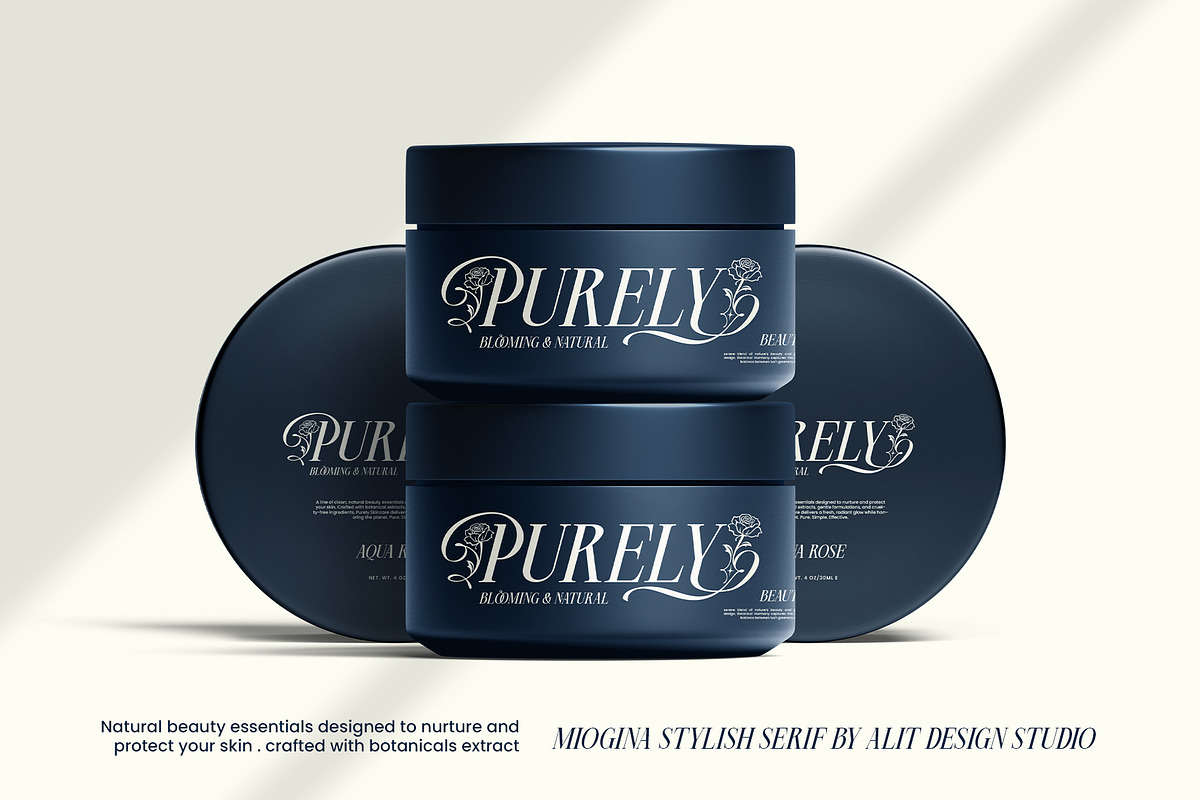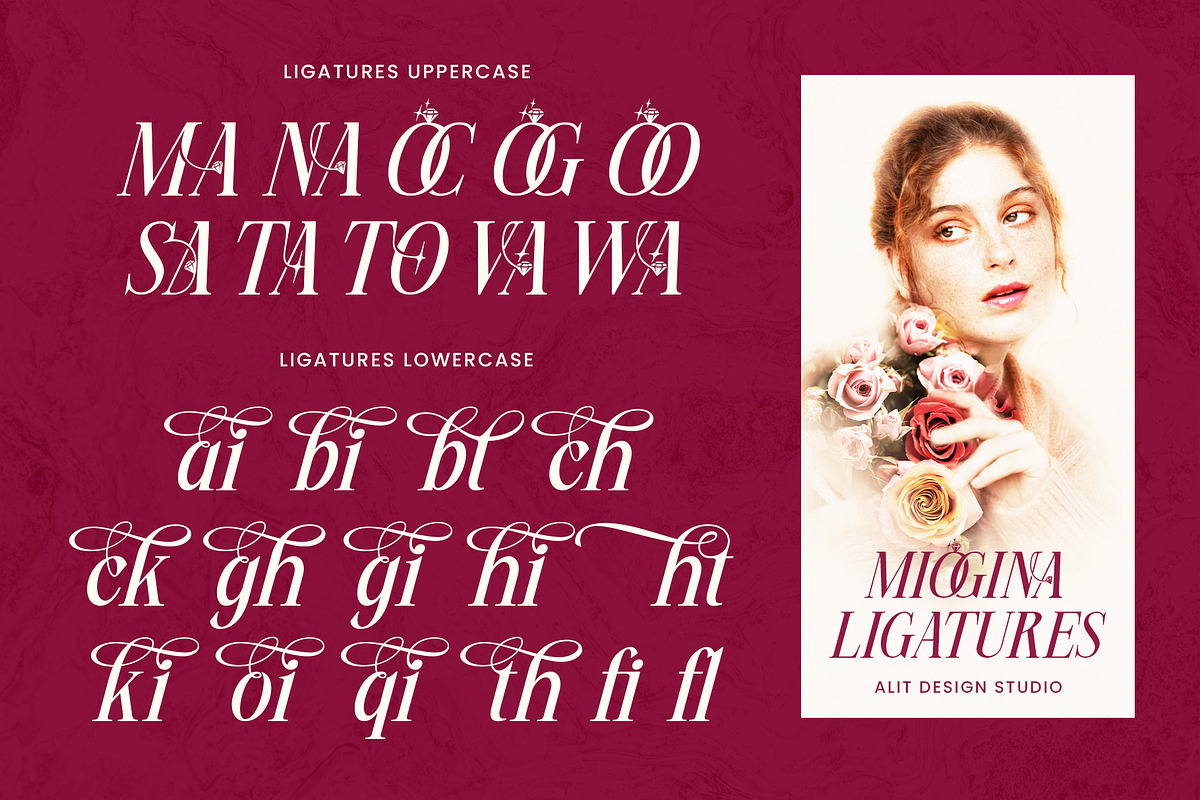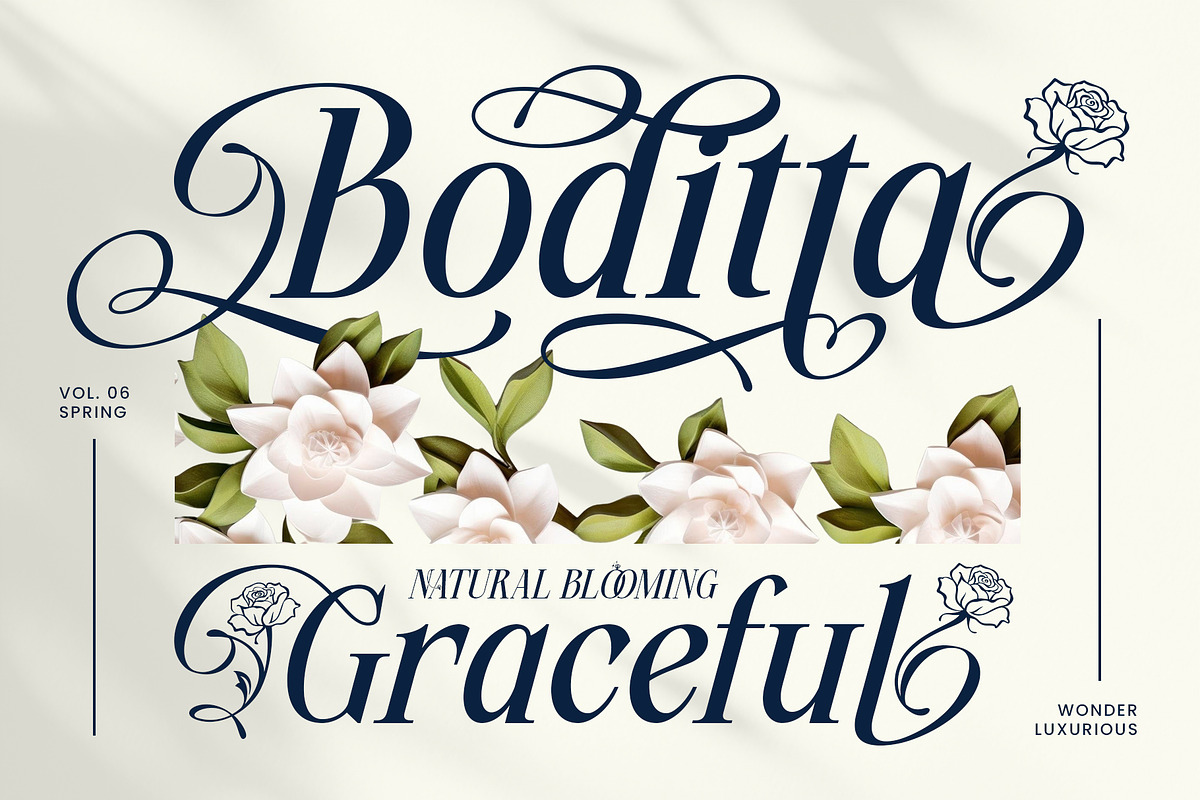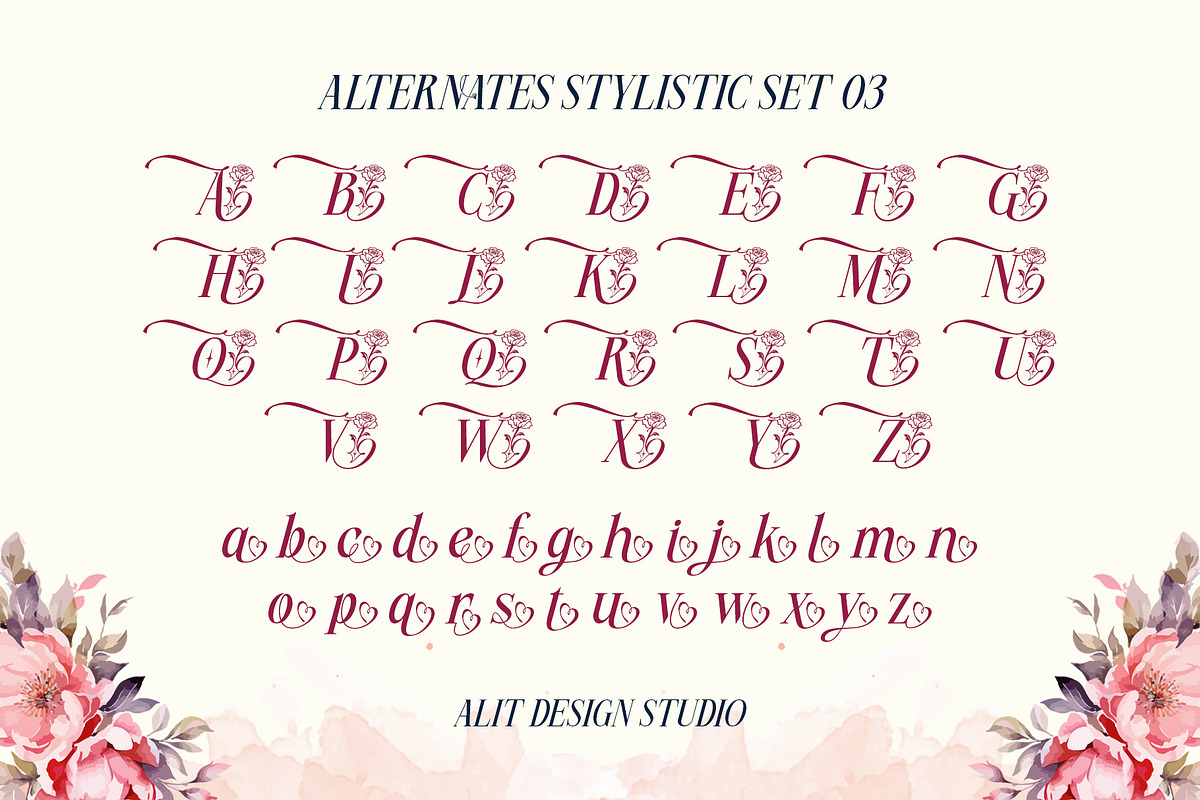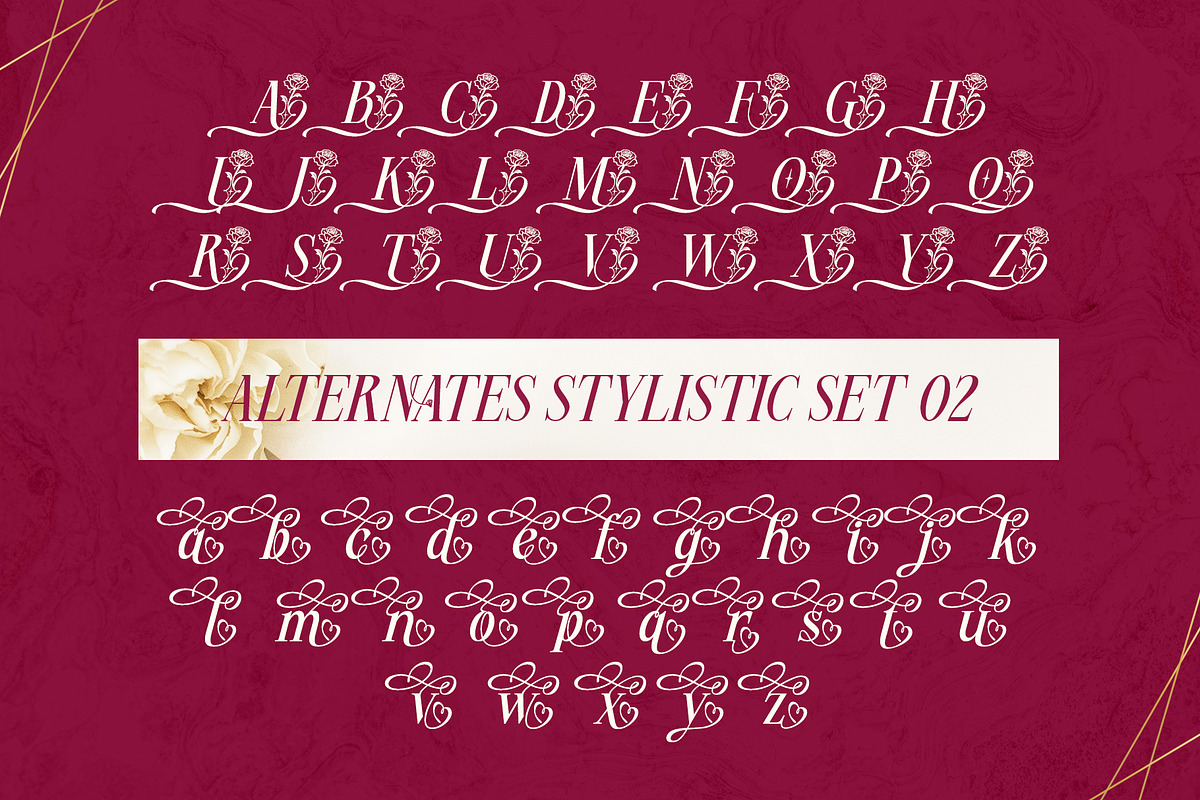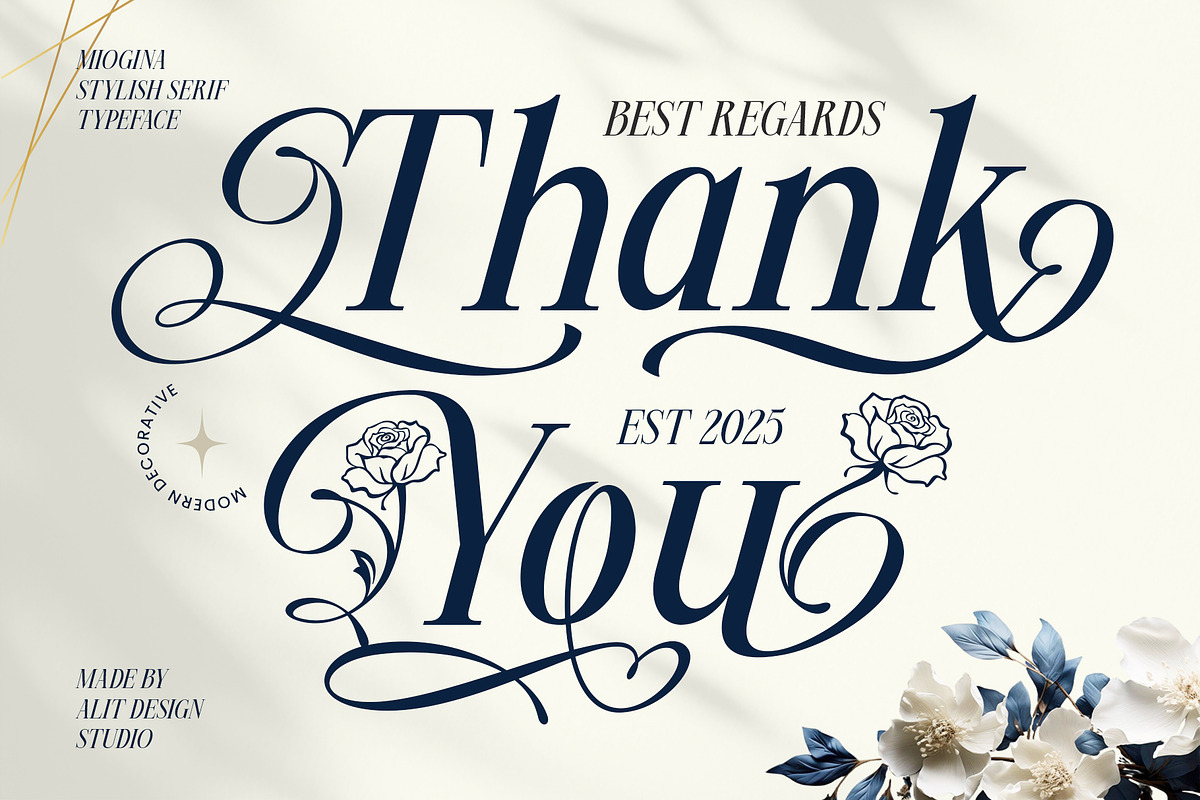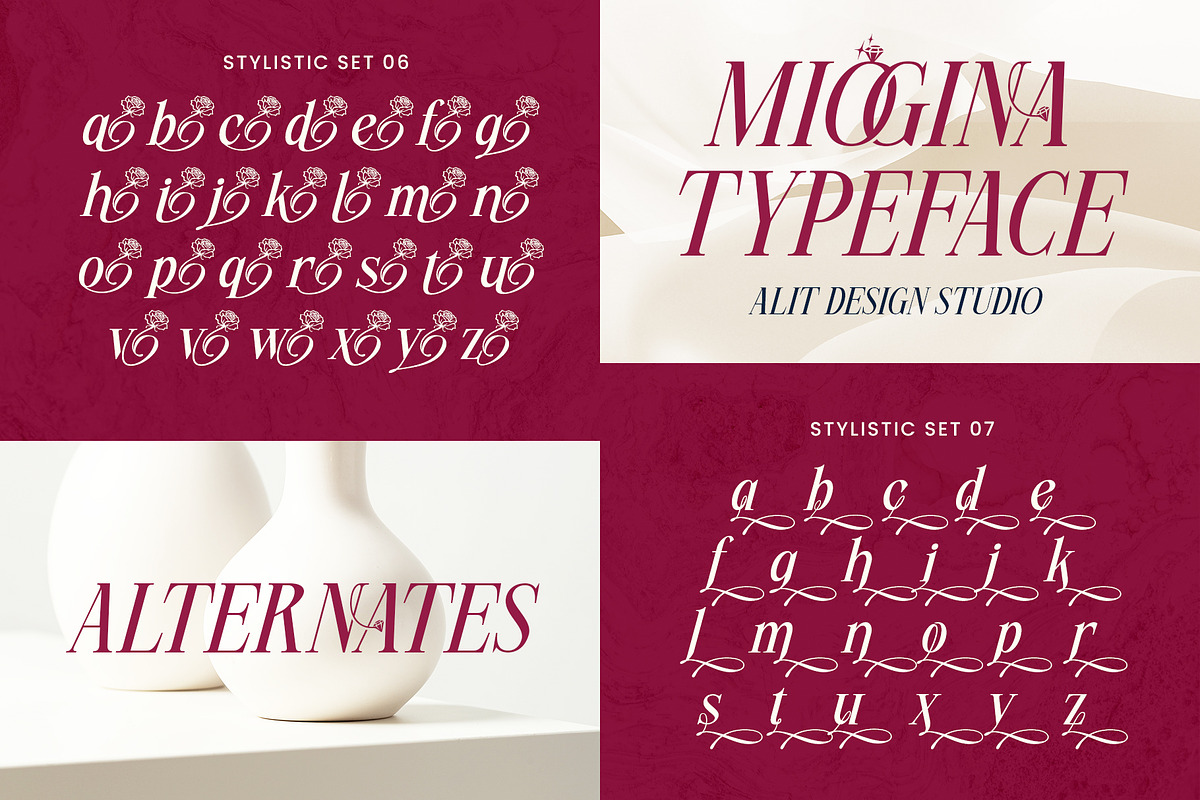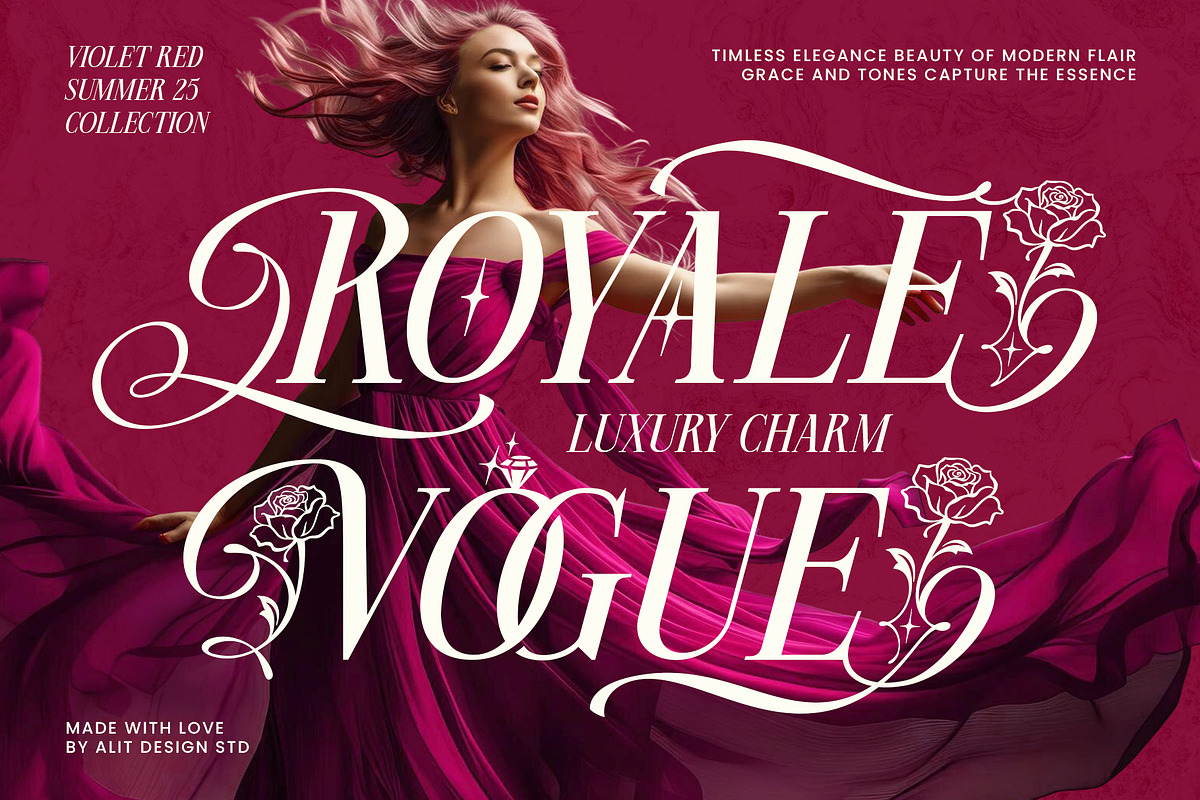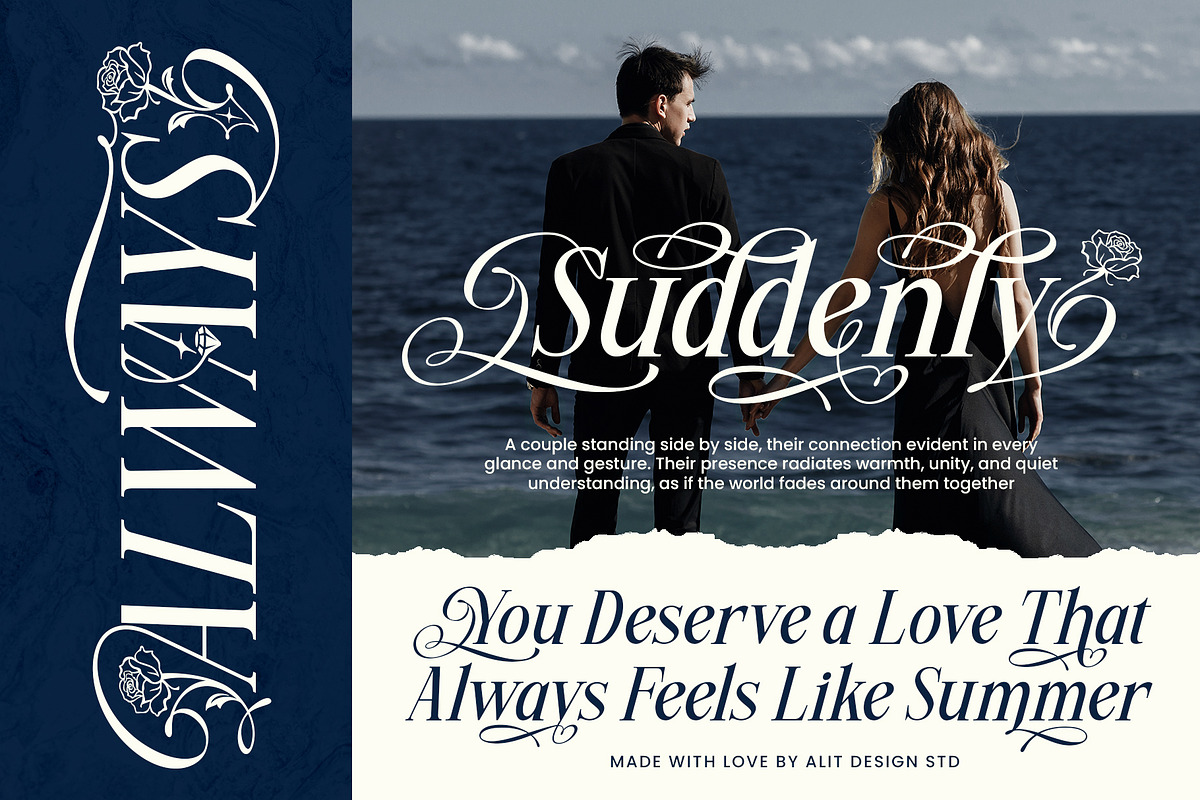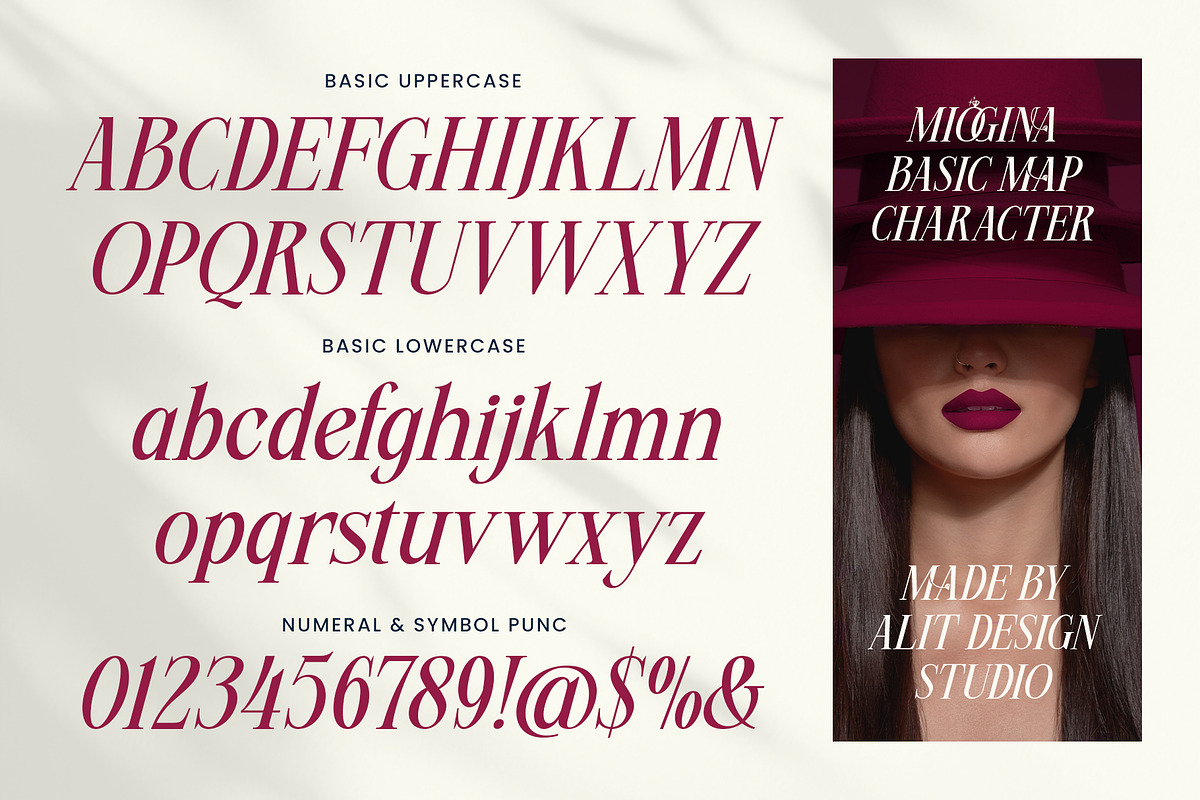
Miogina Typeface
Unveiling Miogina Typeface: The Quintessence of Modern Serif Elegance with Swash Artistry
Prepare to redefine your design aesthetic with Miogina Typeface, an exquisitely crafted modern serif font that masterfully intertwines contemporary sophistication with the flowing grace of elegant swashes. Designed with meticulous attention to detail by Alit Design Studio, Miogina is not merely a typeface; it's a versatile artistic tool poised to infuse your projects with an unparalleled sense of luxury, romance, and timeless beauty.
Dive Deeper into Miogina's Distinctive Features:
A Harmonious Fusion of Styles: Miogina stands out by seamlessly blending the clean, legible lines of a modern serif with the ornate, calligraphic flourishes of script-inspired swashes. This unique combination offers the best of both worlds: professional readability enhanced by an artistic, personalized touch. Perfect for conveying a message that is both authoritative and enchanting.
Rich & Romantic Ornamental Glyphs: Elevate your typography beyond mere letters. Miogina is thoughtfully adorned with a stunning array of integrated ornamental glyphs that include:
- Delicate Roses: Symbolizing beauty and love, perfect for adding a romantic or high-fashion touch.
- Sparkling Diamonds: Representing luxury, exclusivity, and prestige, ideal for premium branding.
- Charming Hearts: Connoting warmth, affection, and passion, suitable for personal or celebratory designs. These integrated ornaments are designed to flow seamlessly with the letterforms, creating cohesive and visually captivating compositions.
Expansive Glyph Library (772 Glyphs): Miogina boasts an impressive collection of 772 glyphs, providing an extensive palette for creative expression. This robust set ensures you have the flexibility to achieve virtually any stylistic nuance you envision, from subtle enhancements to dramatic declarations.
Unleash Creativity with Stylistic Alternates: Miogina truly shines with its dedicated stylistic sets, offering incredible typographic versatility:
- Stylistic Set 01 (Elegant Curls & Swirls): Explore a magnificent collection of alternate uppercase and lowercase letters featuring graceful, flowing curls and intricate swirls. These alternatives are perfect for adding an extra layer of sophistication and bespoke elegance, making your headlines and logos truly memorable.
- Stylistic Set 02 (Rose & Heart Infused Characters): Discover unique alternate characters (both uppercase and lowercase) where select letters are beautifully integrated with delicate rose and heart motifs. This set is a dream for projects requiring a touch of romance, femininity, or heartfelt charm, ideal for wedding stationery, romantic branding, or high-end beauty products.
Comprehensive Ligature Support: Beyond individual glyphs, Miogina includes a full suite of ligatures (combined letter pairs) that enhance the flow and aesthetic appeal of your text by smoothly connecting characters, eliminating awkward spacing, and resulting in a more polished and professional appearance.
Versatile Application for Premium Designs: Miogina Typeface is the quintessential choice for a broad spectrum of high-impact design applications, including:
- Luxury Branding & Logos: Create iconic and memorable brand identities for fashion houses, jewelry brands, upscale salons, and premium products.
- Wedding & Event Invitations: Craft exquisite and personal invitations that set a tone of elegance and celebration.
- Editorial Design: Enhance magazine layouts, book covers, and editorial content with a touch of sophisticated flair.
- Packaging Design: Make products stand out on shelves with premium, eye-catching labels and packaging.
- Poster & Advertisement Design: Design captivating visuals that demand attention and convey a message of quality and distinction.
- Social Media & Digital Content: Create stunning graphics that reflect a high-end aesthetic across all digital platforms.
Miogina Typeface is more than just a font; it's an investment in your design arsenal, empowering you to create visuals that resonate with grace, speak volumes of luxury, and leave a lasting impression. Elevate your creative projects and infuse them with the enchanting allure of Miogina.